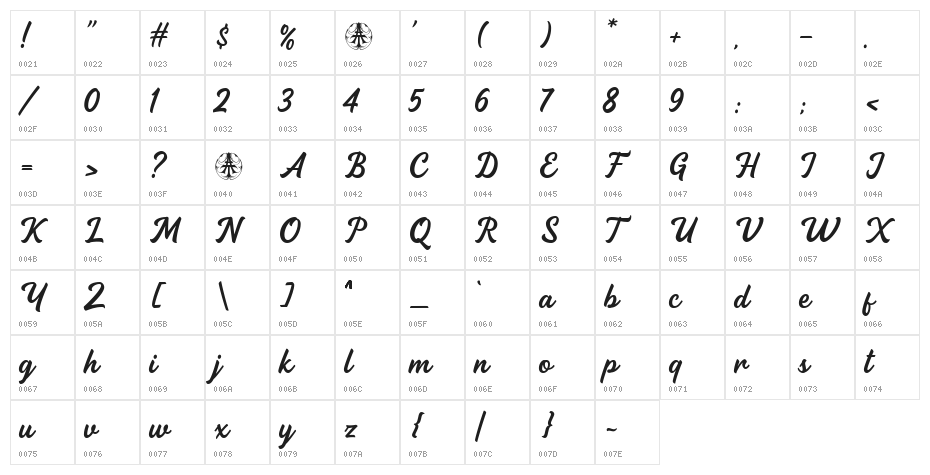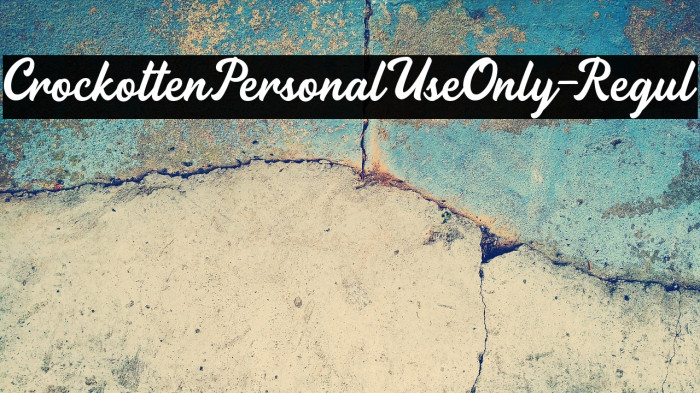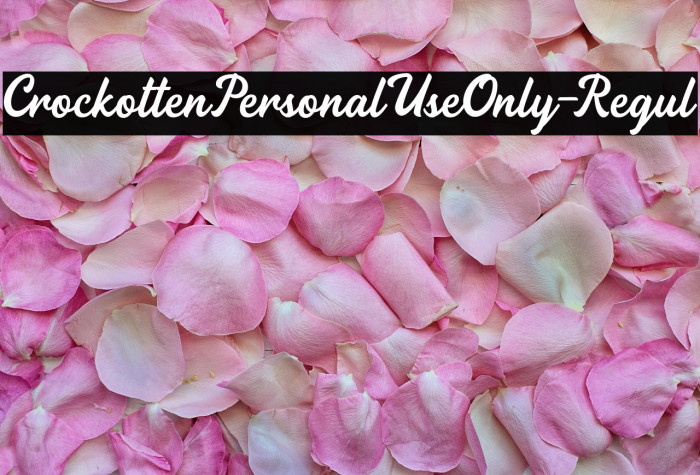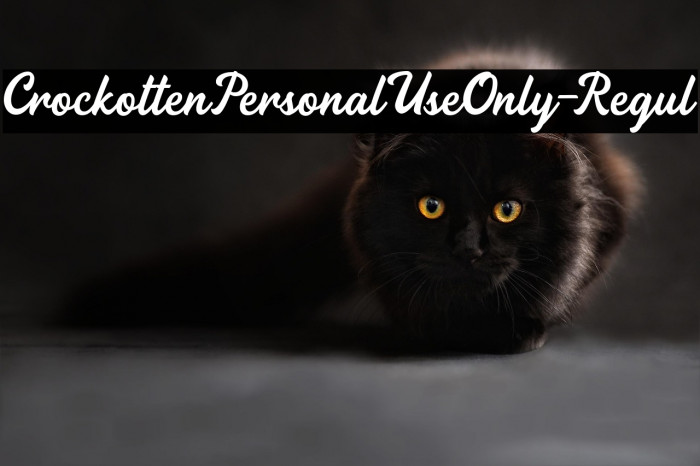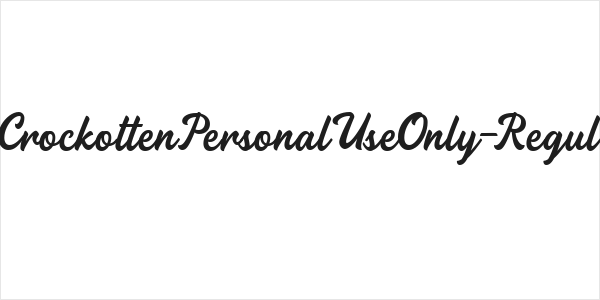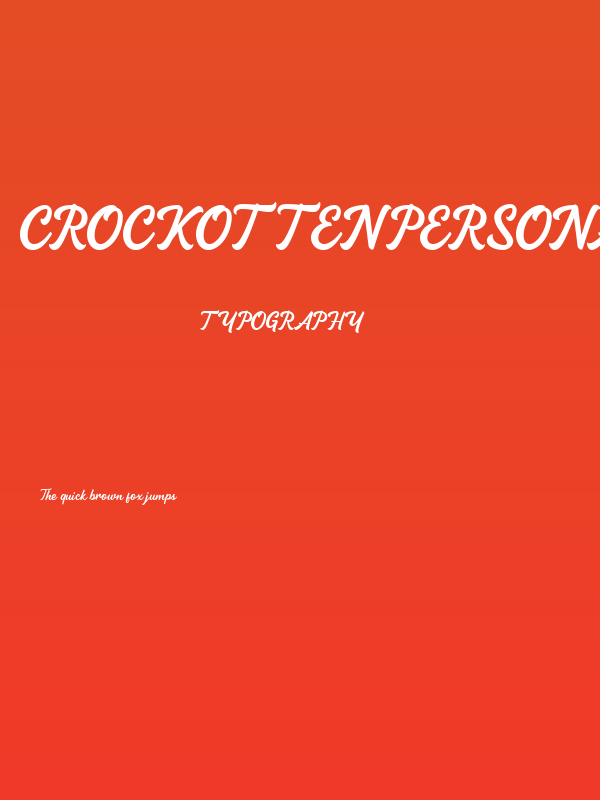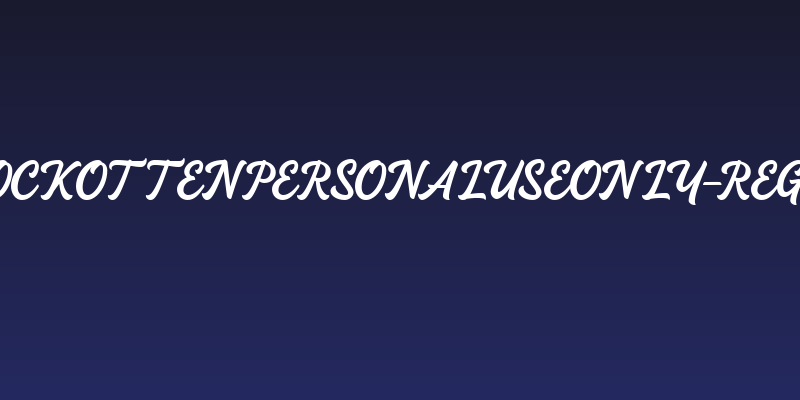
CrockottenPersonalUseOnly-Regul Font
CrockottenPersonalUseOnly-Regul Description
This font features a flowing, cursive style with elegant, sweeping curves and a handwritten appearance. The uppercase letters are bold and slightly slanted, giving a sense of movement and fluidity. The lowercase letters maintain the same cursive style, with consistent stroke widths that add to the font's cohesive look. Numbers are designed with the same attention to detail, ensuring they blend seamlessly with the letters. Special characters are ornate, adding a decorative touch that complements the overall aesthetic. This font is ideal for projects that require a personal, artistic touch.
Use CaseLogos, Headlines, Invitations
Proposed ProjectsIdeal for wedding invitations, greeting cards, personal branding, and artistic projects.